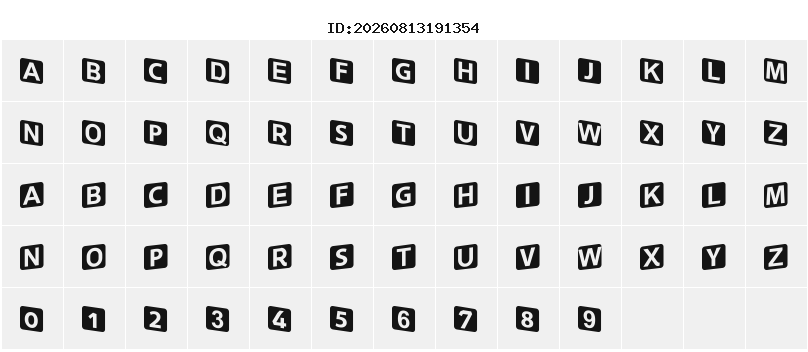
square kids Preview
About square kids.ttf
square kids.ttf is a modern, elegant sans-serif font designed for ultimate readability and visual harmony. Perfect for branding, headlines, web design, and print materials.